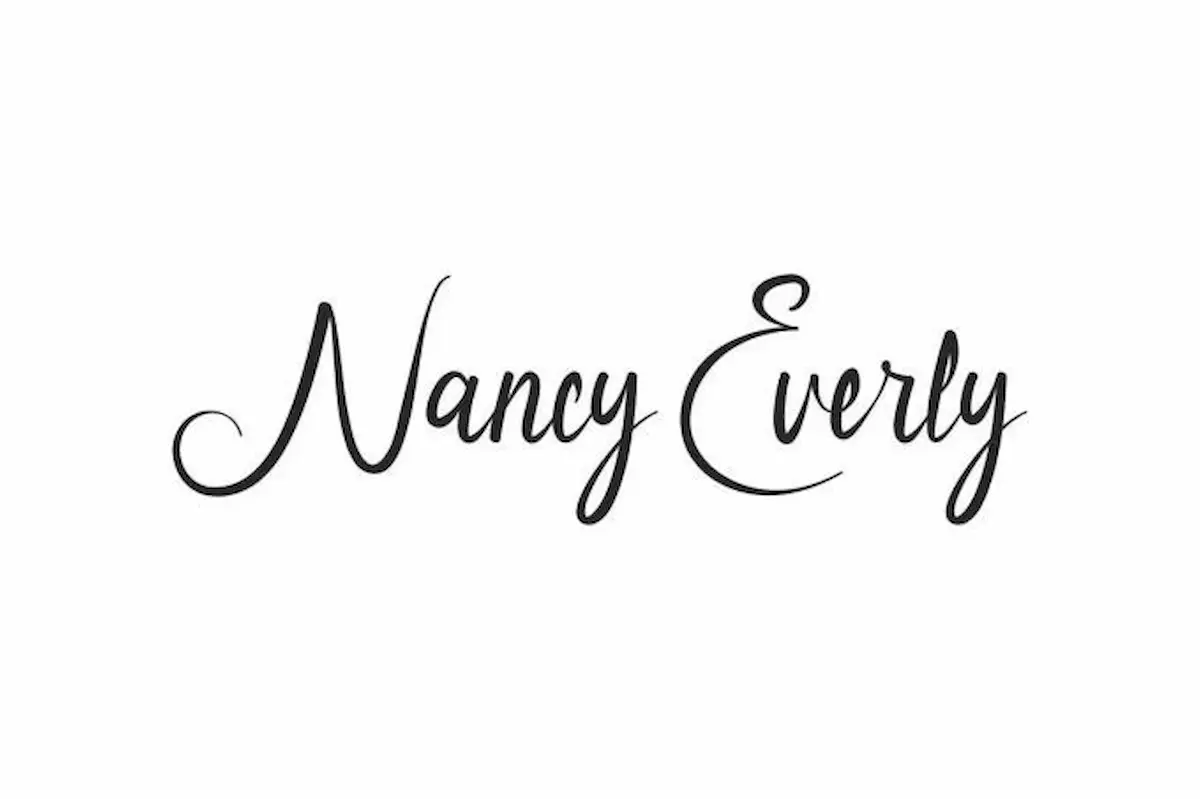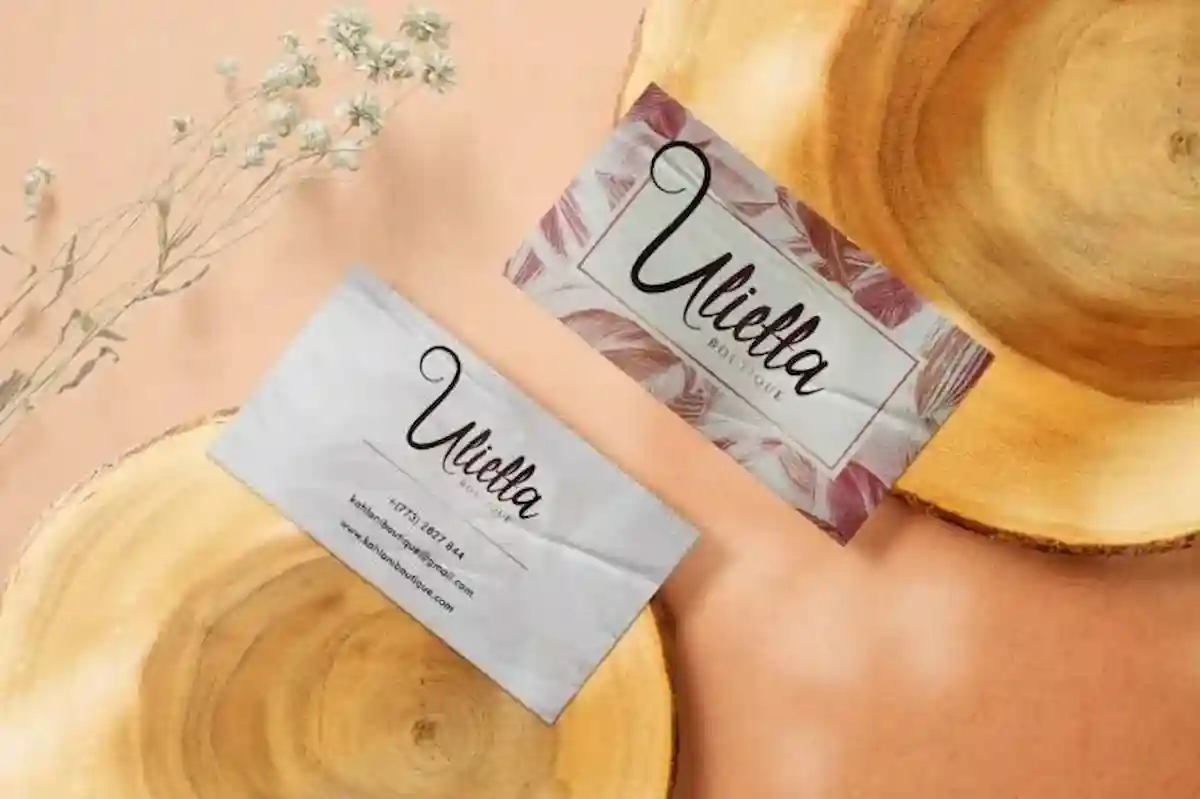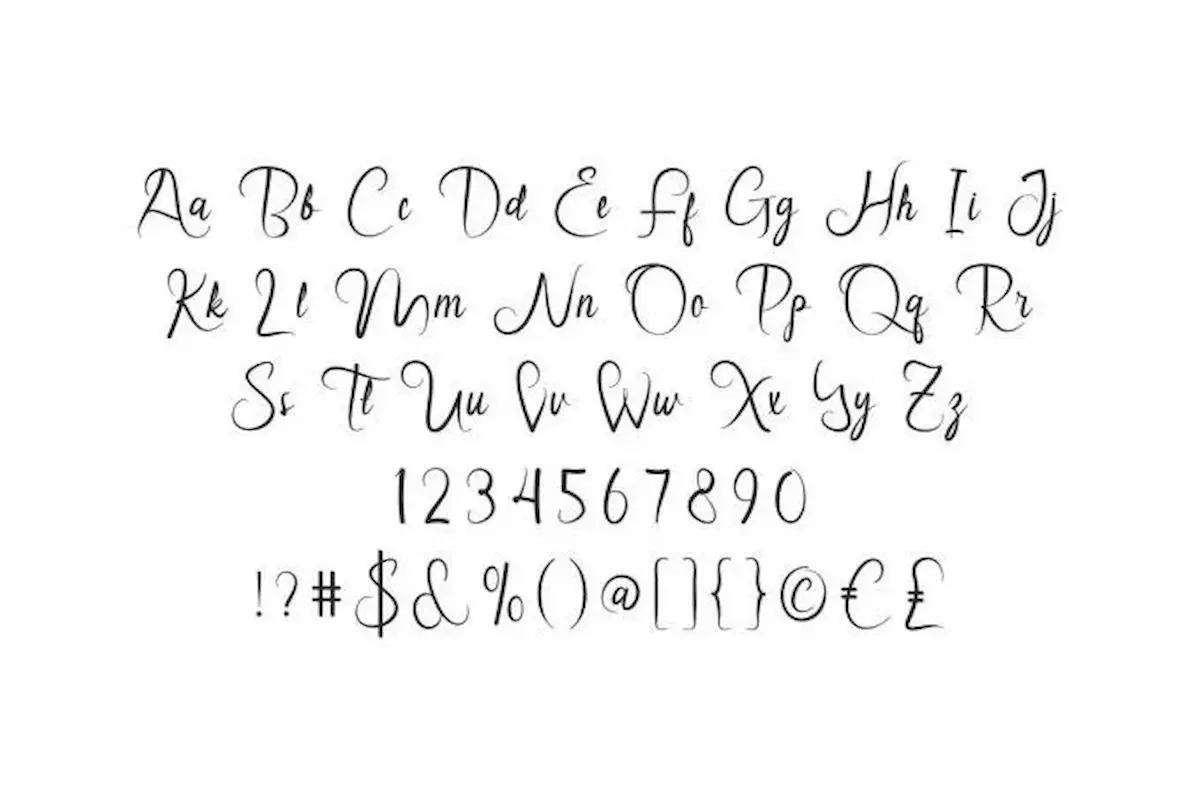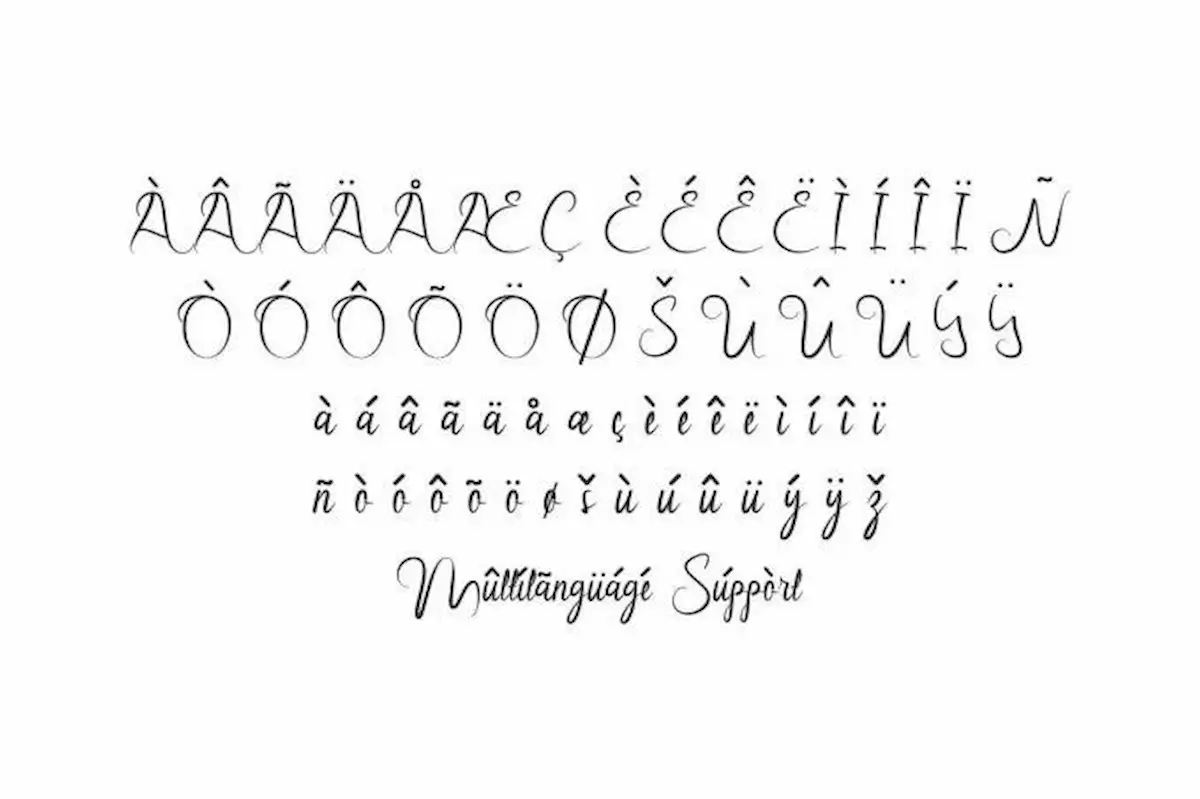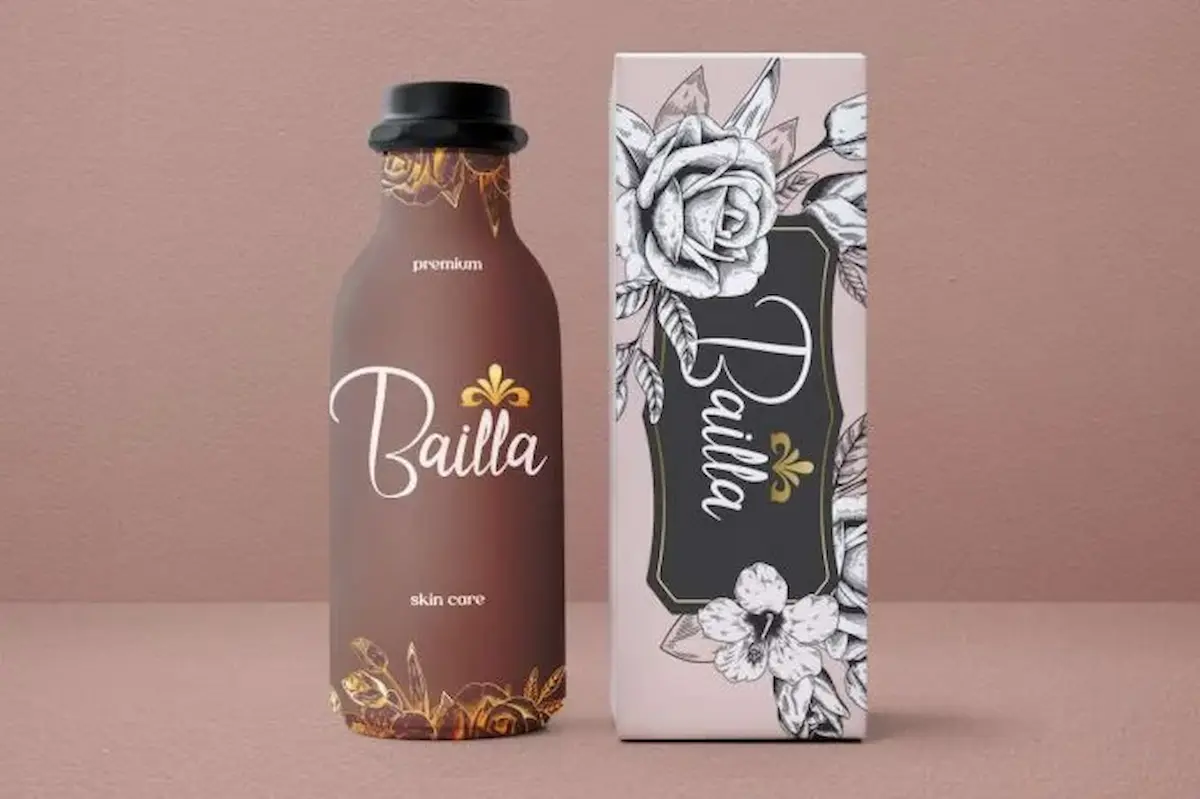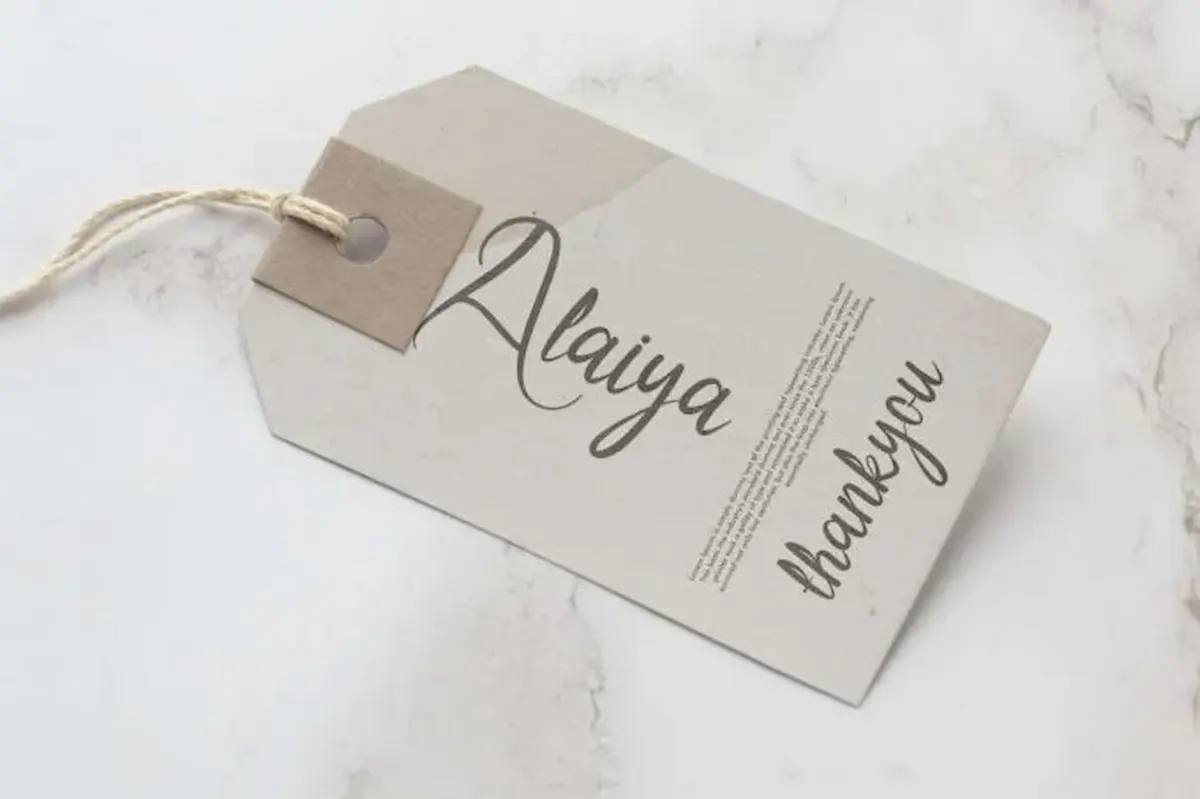
Nancy Everly Font is a beautiful and timeless simple handwritten script font by NihStudio. It’s the best choice for corporative and personal identities, and also for creating apparel brand, business cards, crafts, greeting card, labels, logotype, merch, promotional items, quotes, social media posts, wall art, watermarks, wedding invitations, and more.
Nancy Everly Font is a stunning Calligraphy Font was made in Indonesia 2022 will be awesome for many projects (some require extended license) including : branding identity, business card, logotype, packaging design, print materials, quotes, signage, stationery, title, etc. The theme style of the font is casual, classic, elegant, handmade, natural, stylish style. The font will be match for this business category: clothing, cosmetic, custom craft, florist and gardening, musician, travel, wedding, etc.